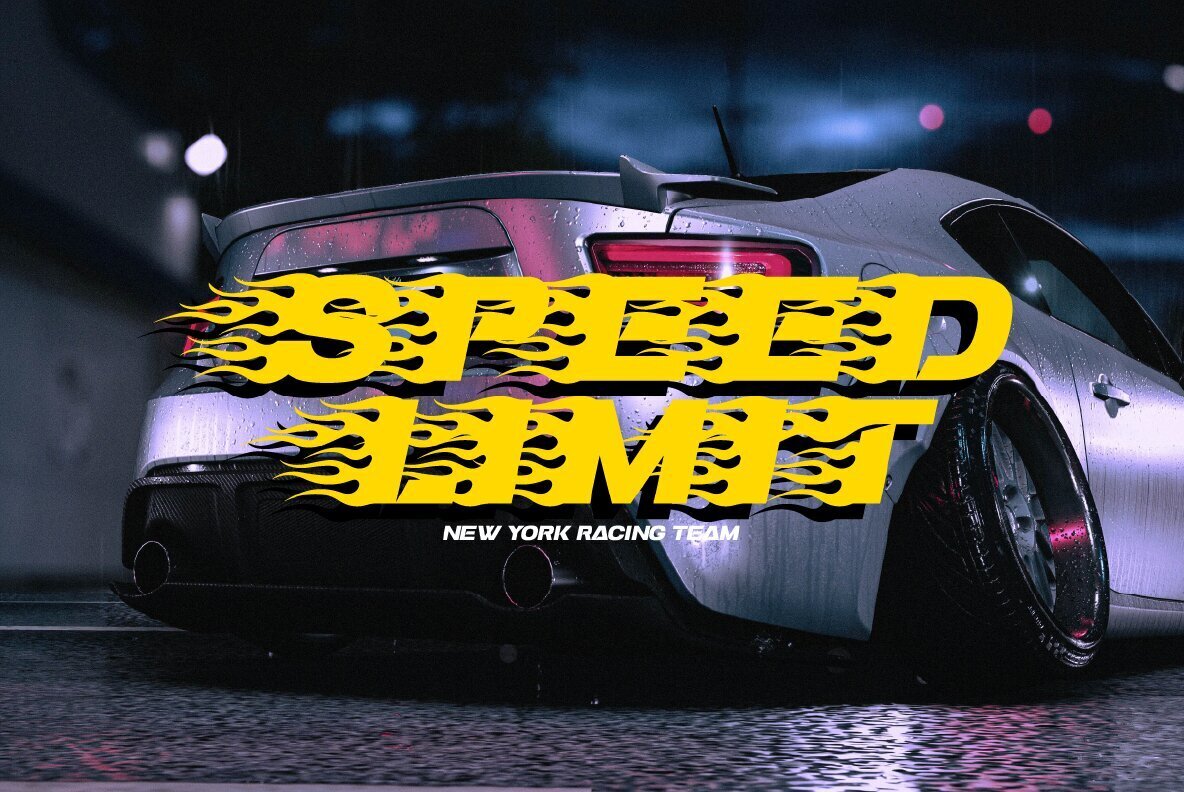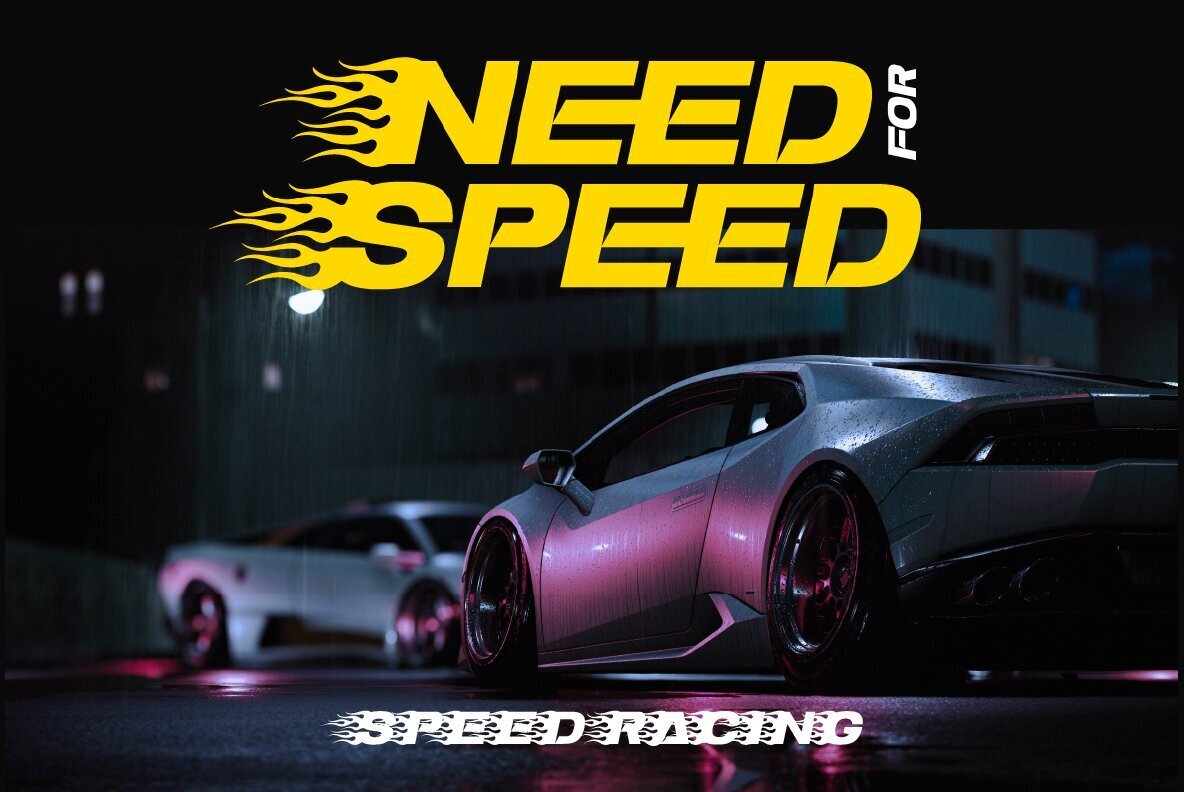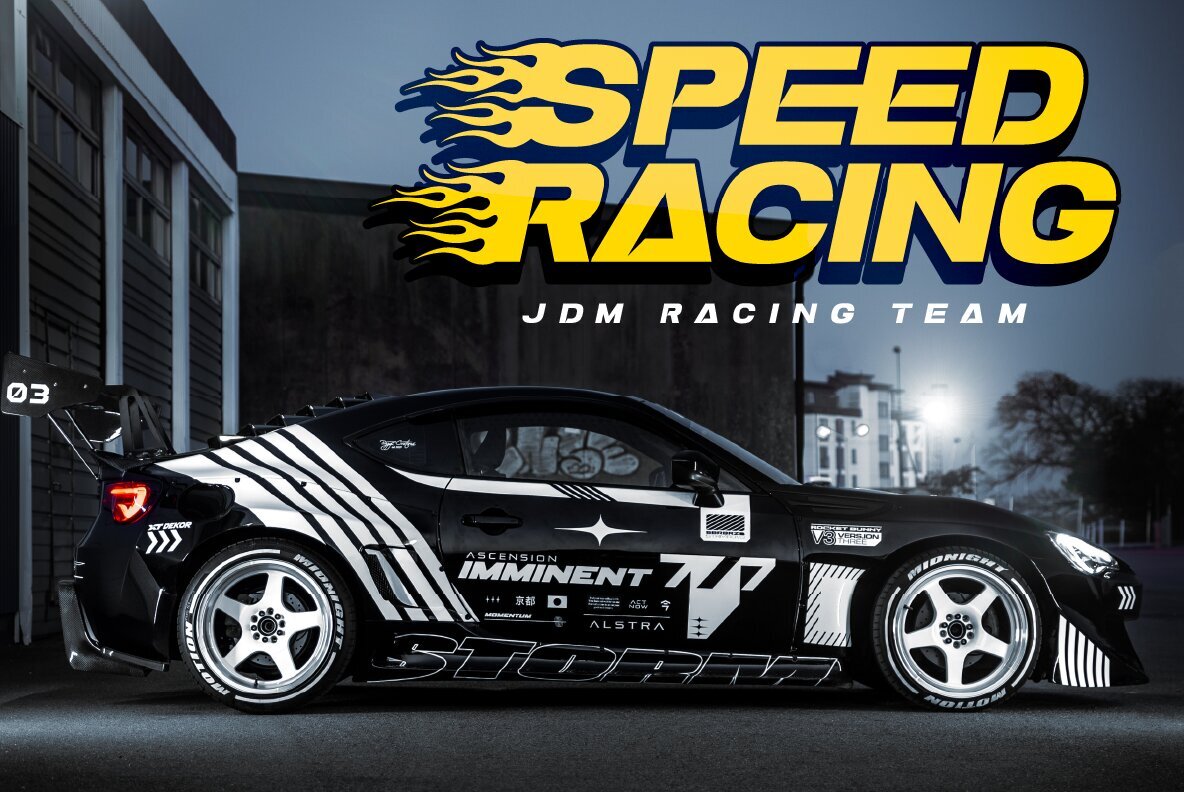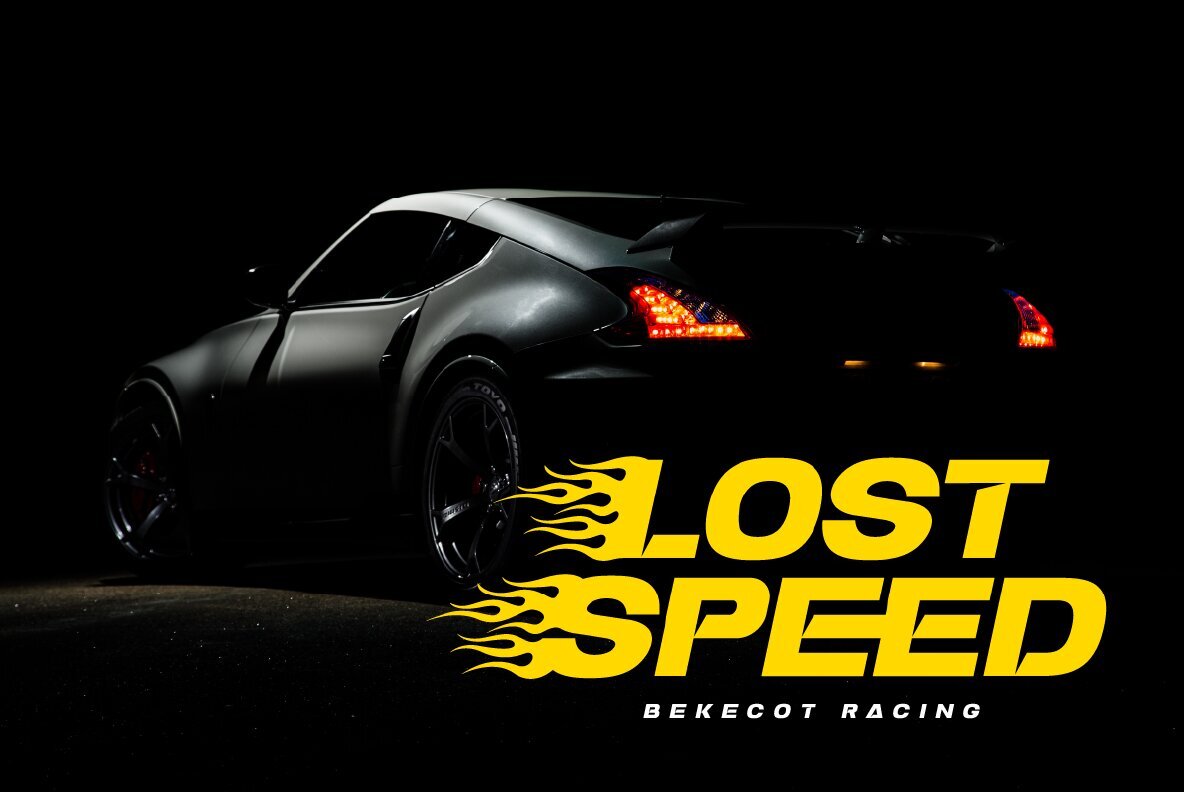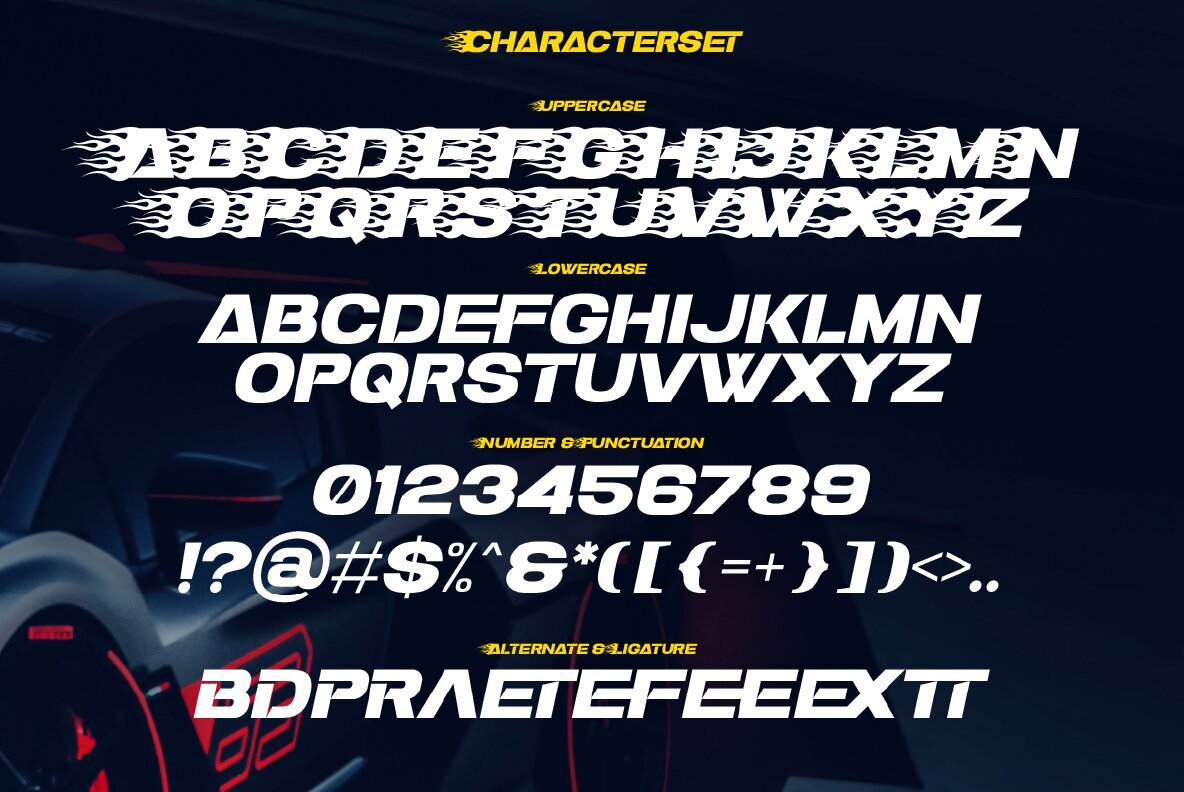
Slugs Racer Font
Slugs Racer Regular
Slugs Racer is an attention-grabbing all caps racing display font that combines a thick body with high contrast to create a modern aesthetic. Perfect for pairing with contrasting design colors, Slugs Racer delivers an impactful visual experience suited for various creative projects. Use this font confidently in projects where elegance meets modernity — be it in branding, logos, book covers, magazine layouts, promotions, or as a stylish overlay on background images. Whether you're designing for print or digital media, this typeface offers versatility and sophistication.Slugs Racer: Bold Display Font with High Contrast